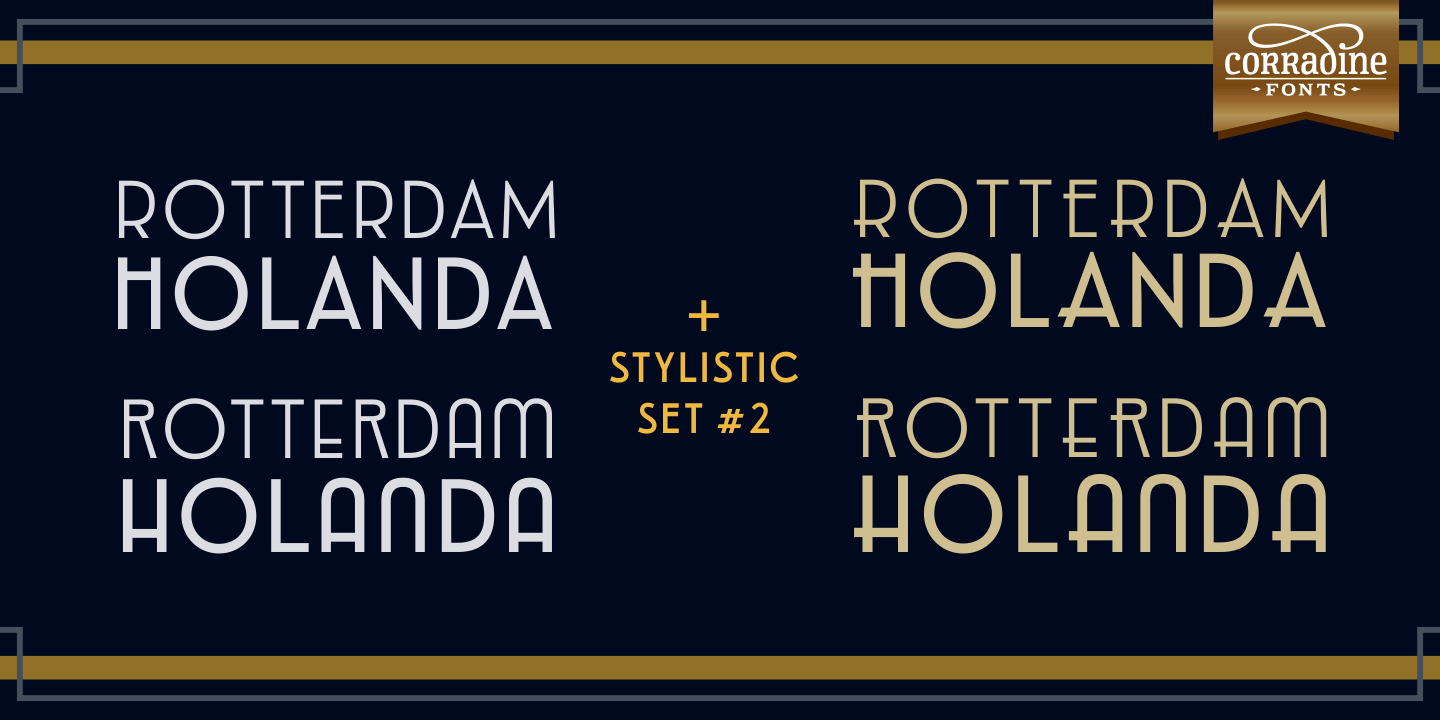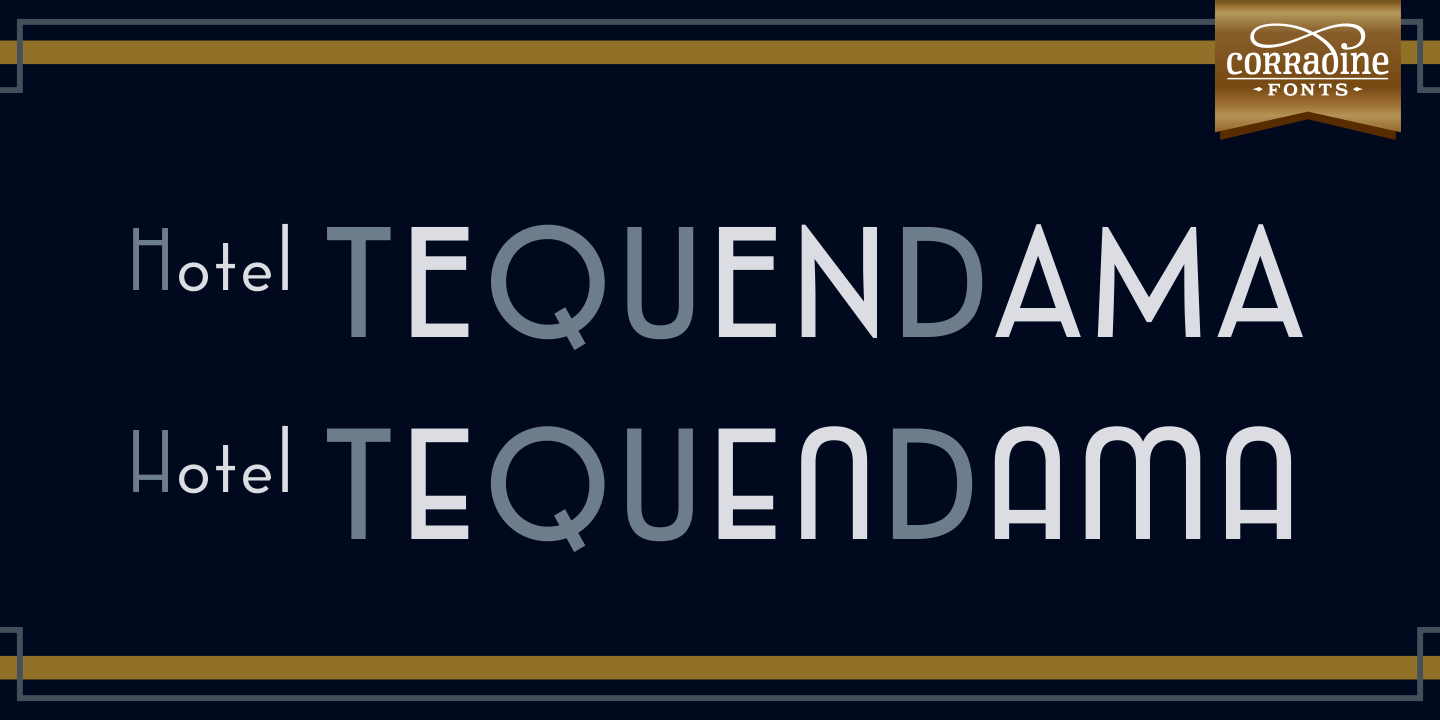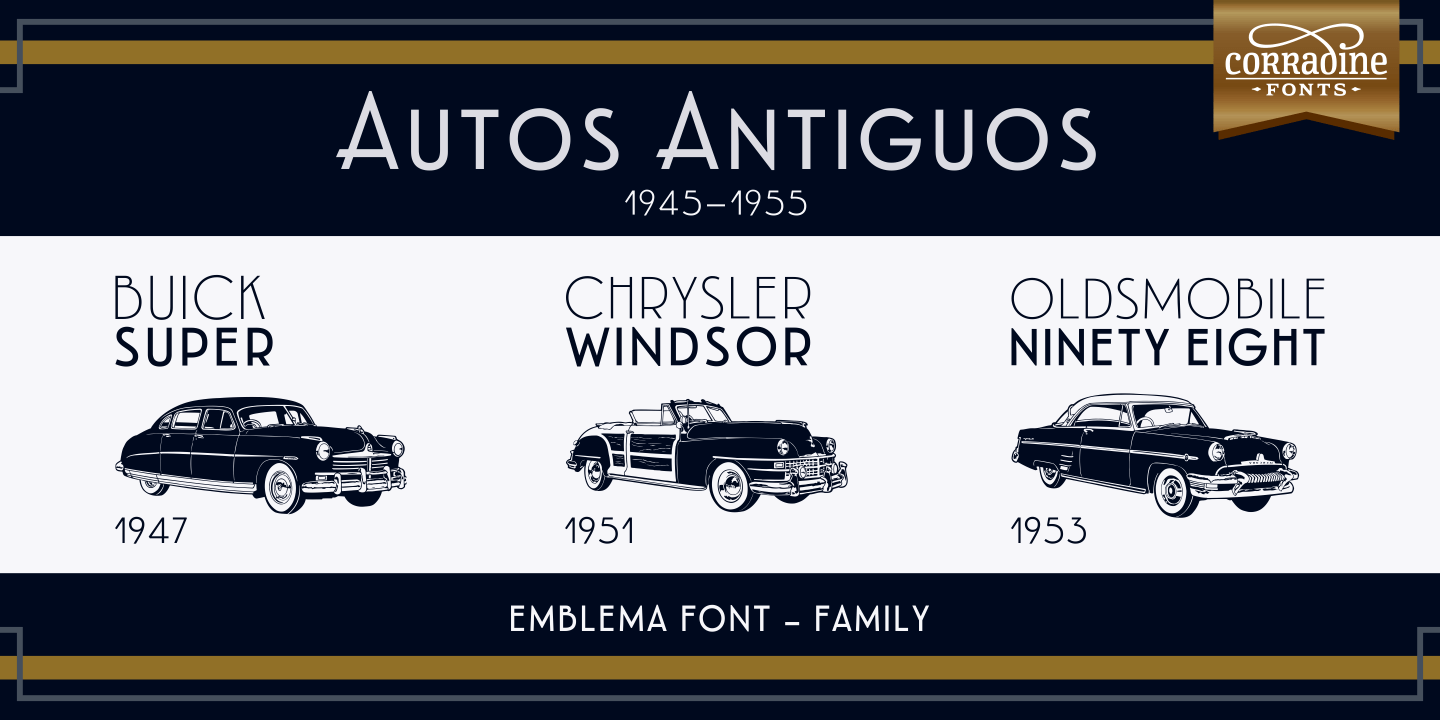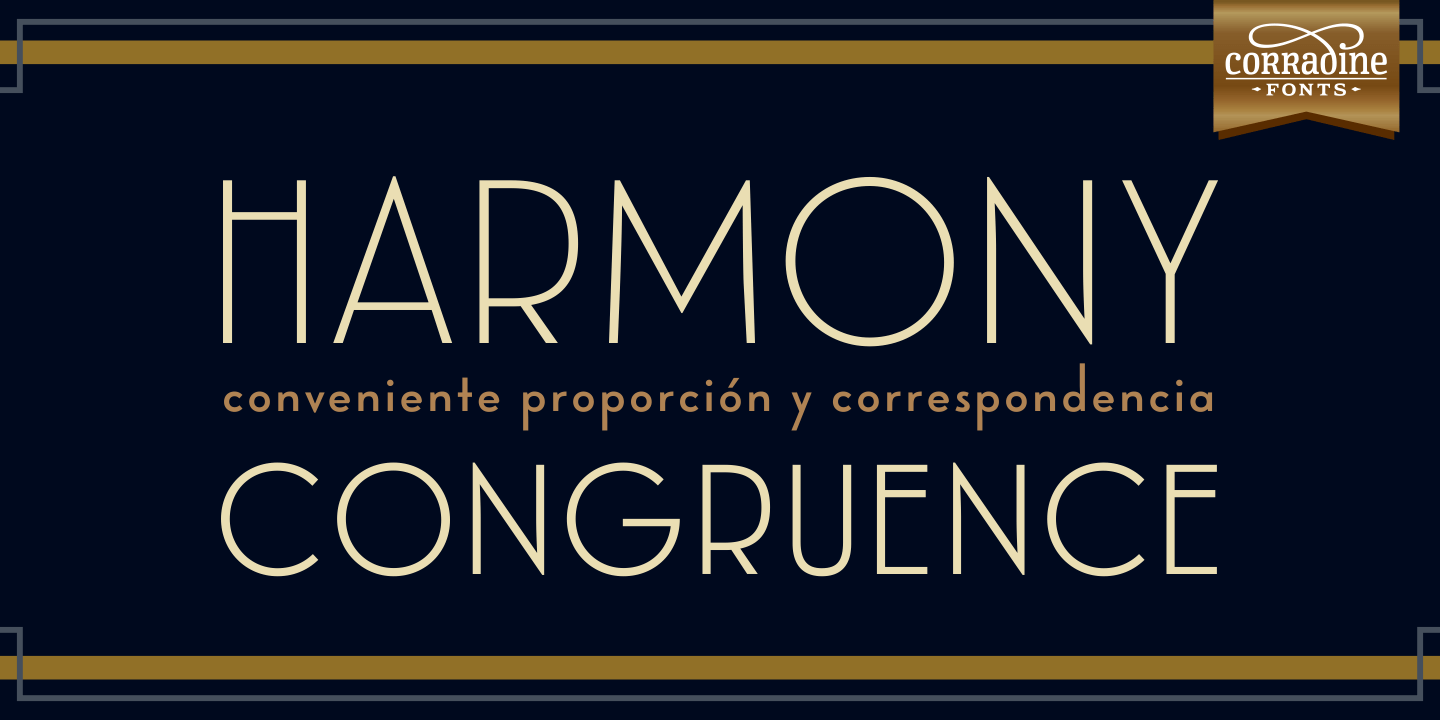
About Emblema
Emblema is an evocative font that remains Art Deco style from early decades of the 20th Century. Its geometric shapes gives a clean and modern look to the designs where it is applied. Emblema was designed in 12 near but different weights and is ideal…